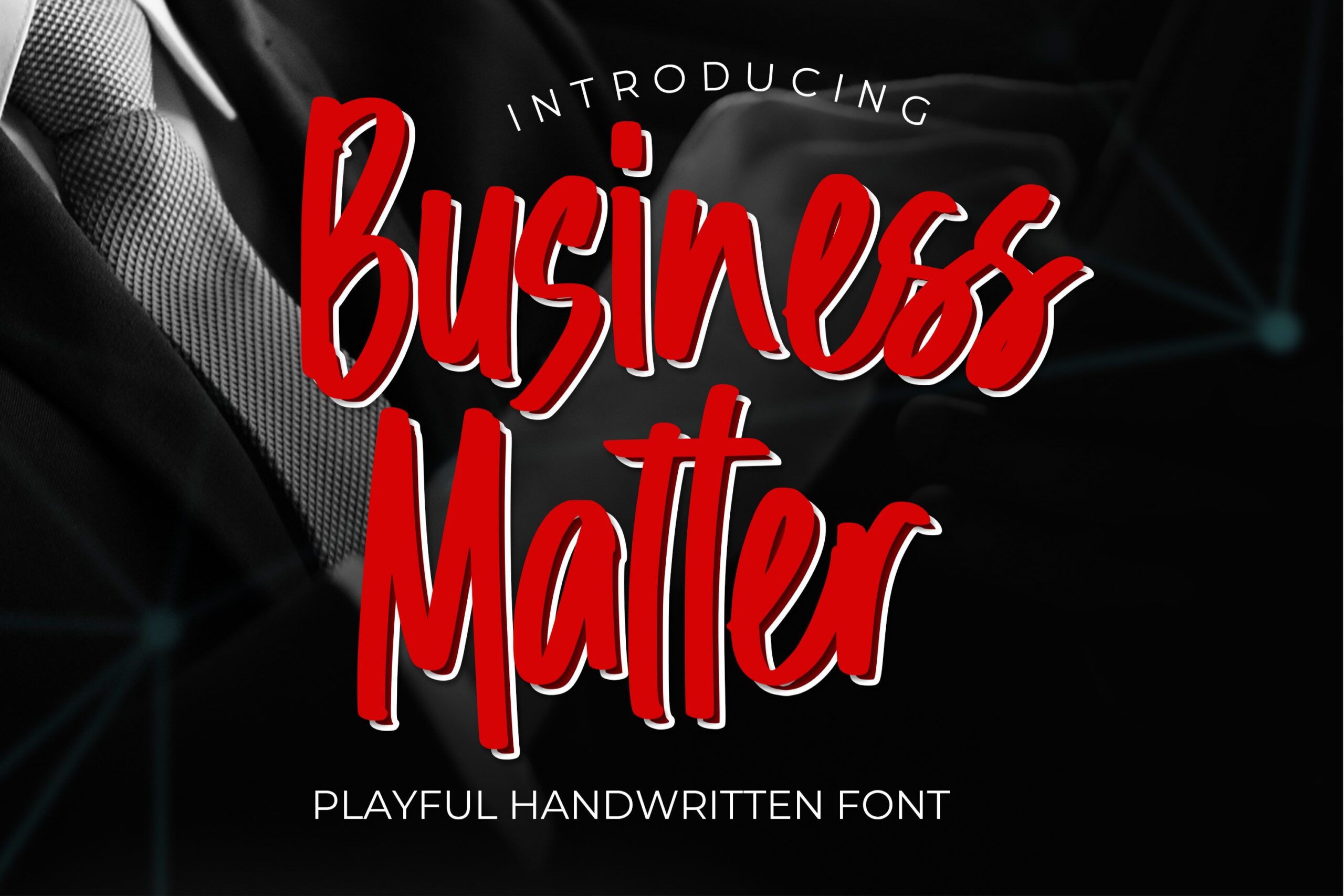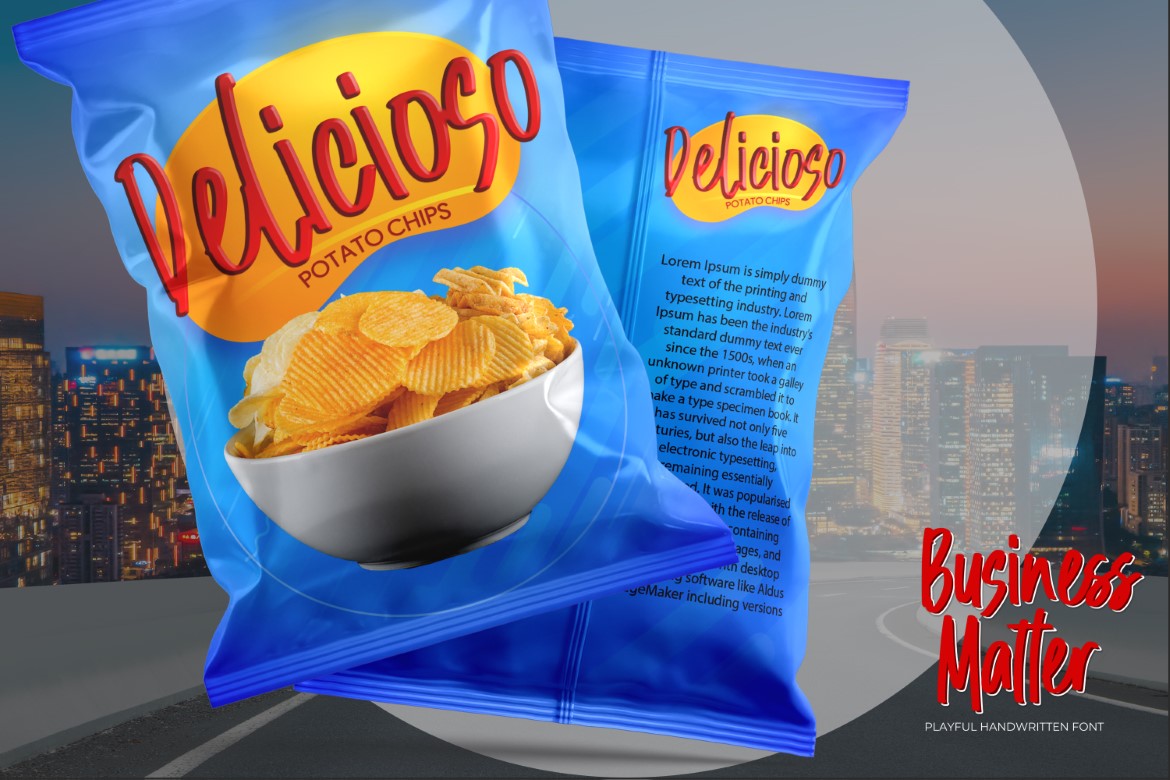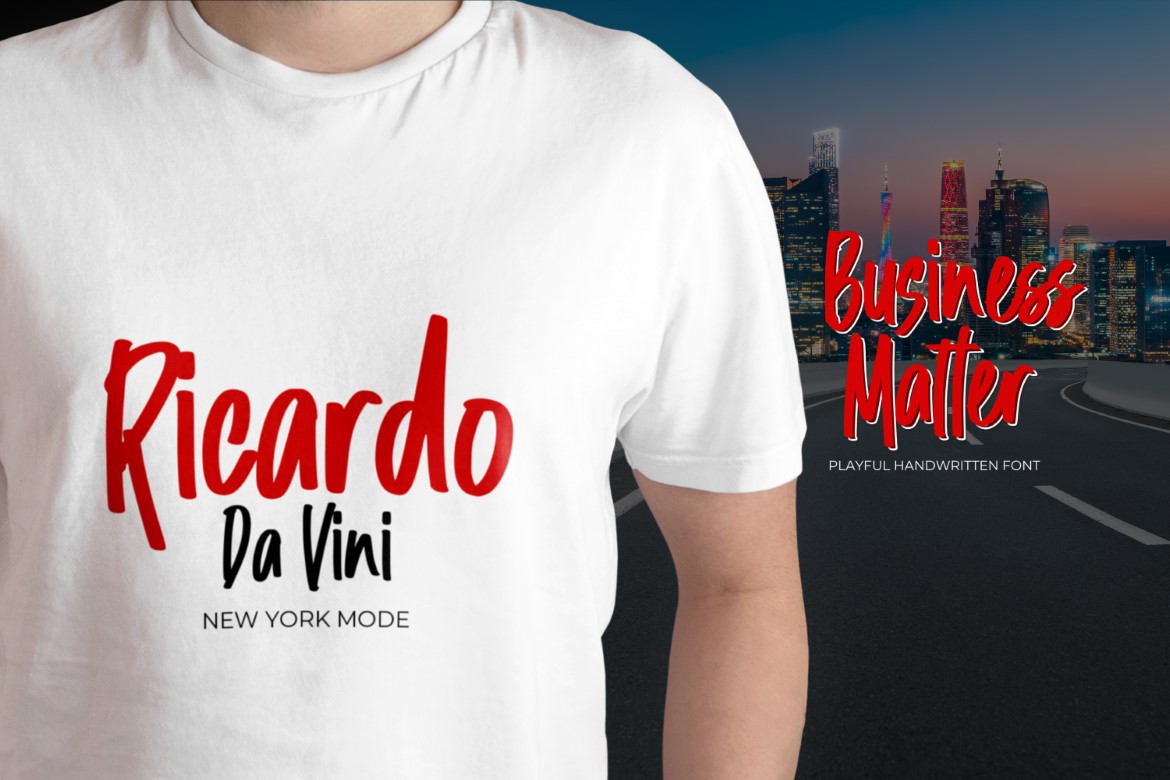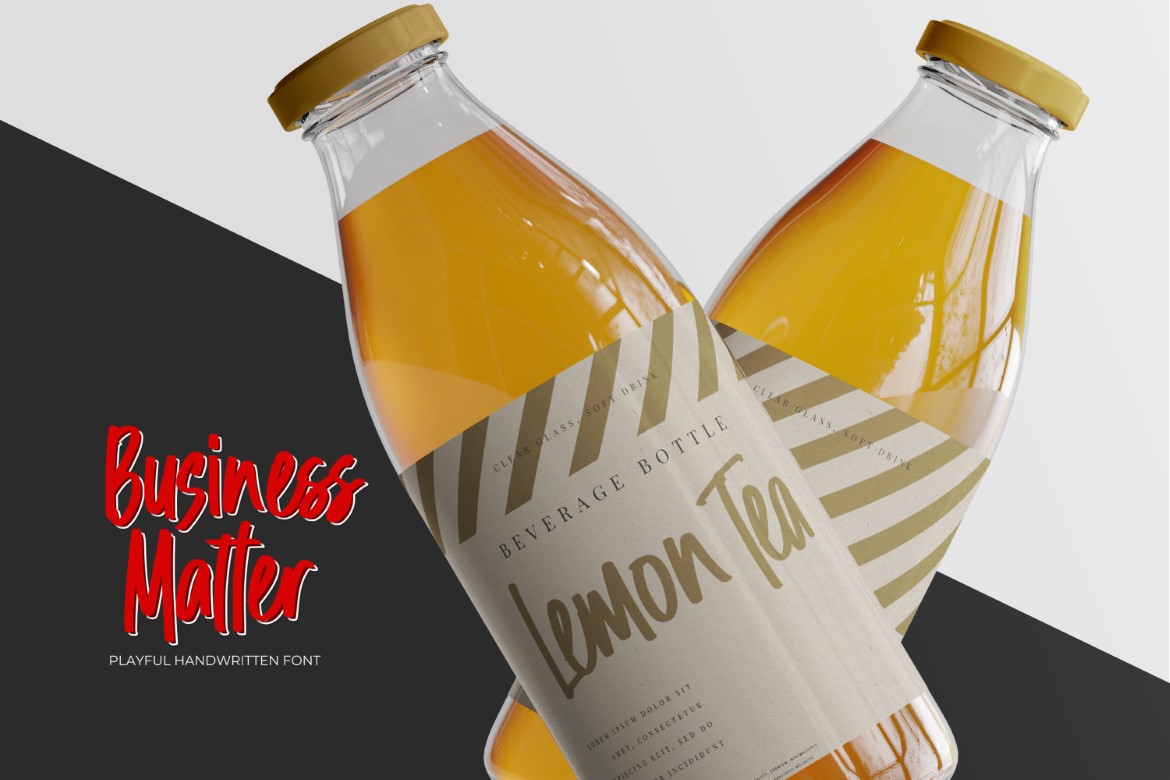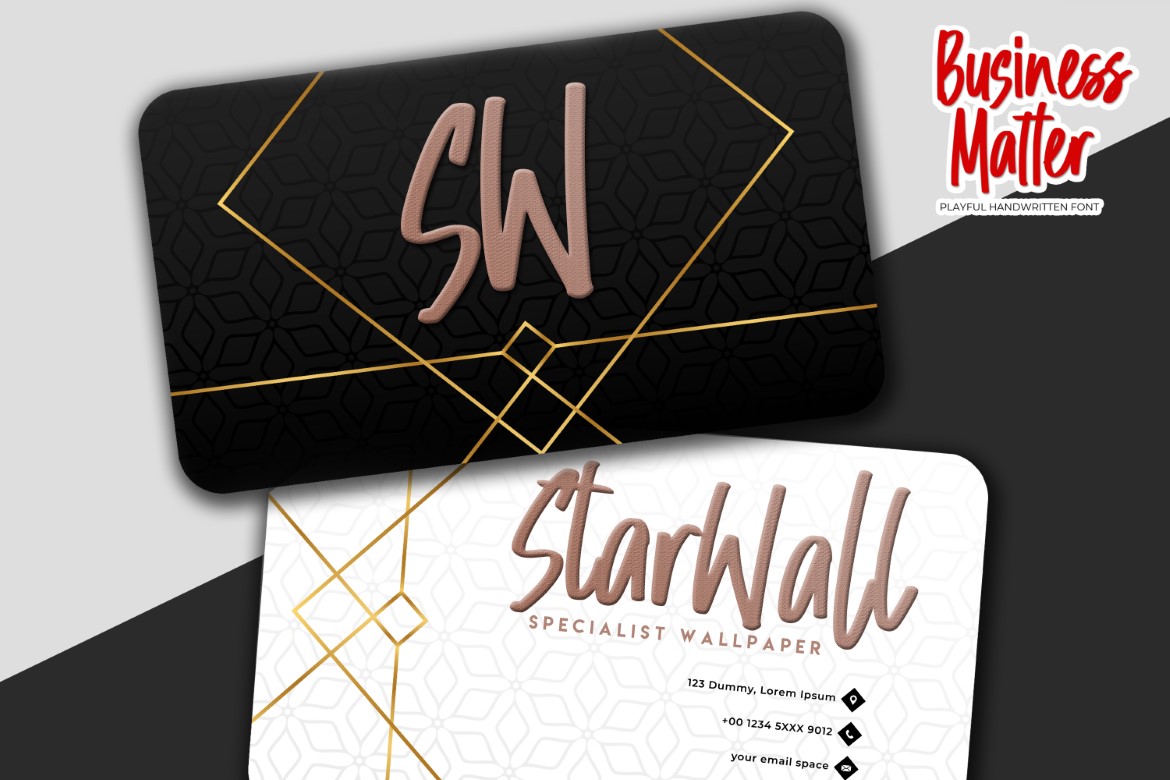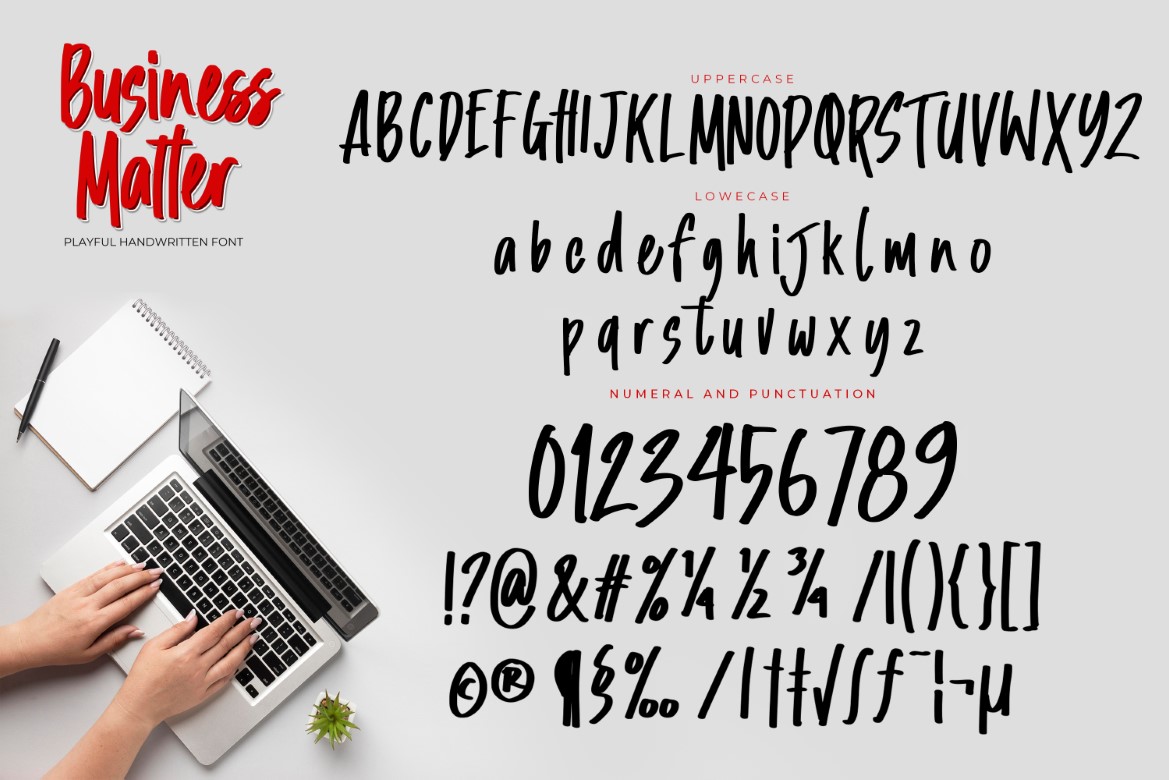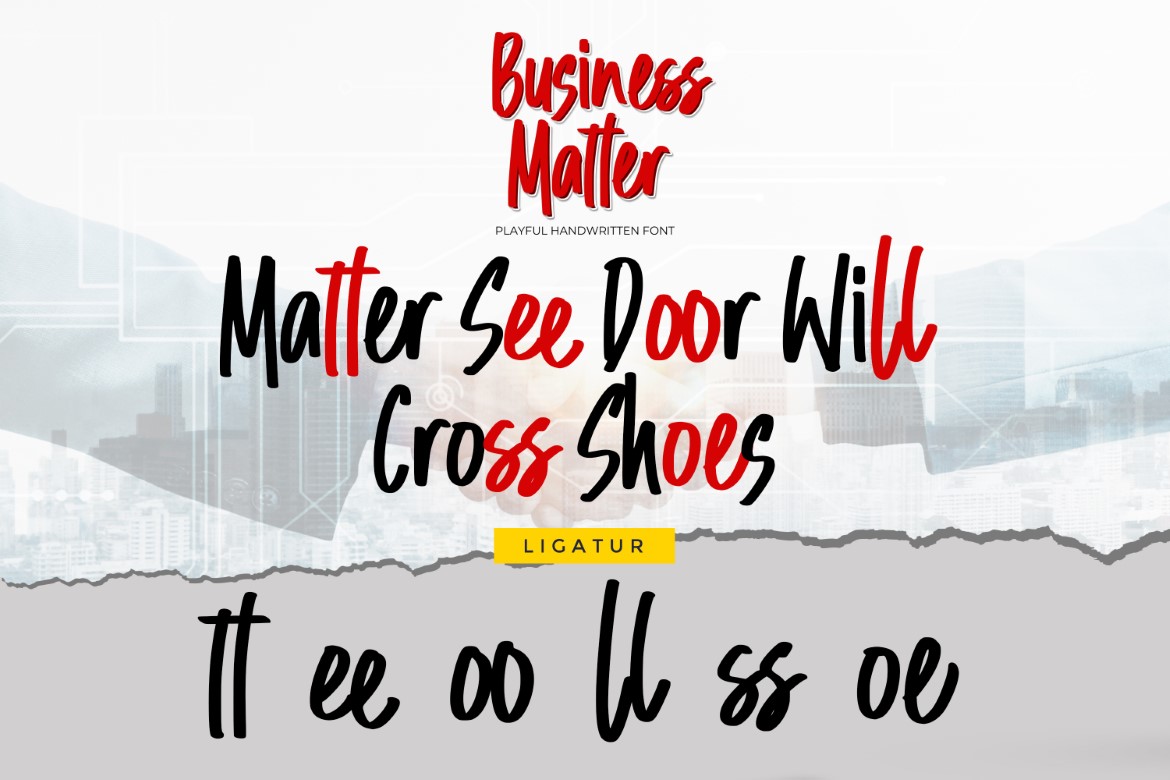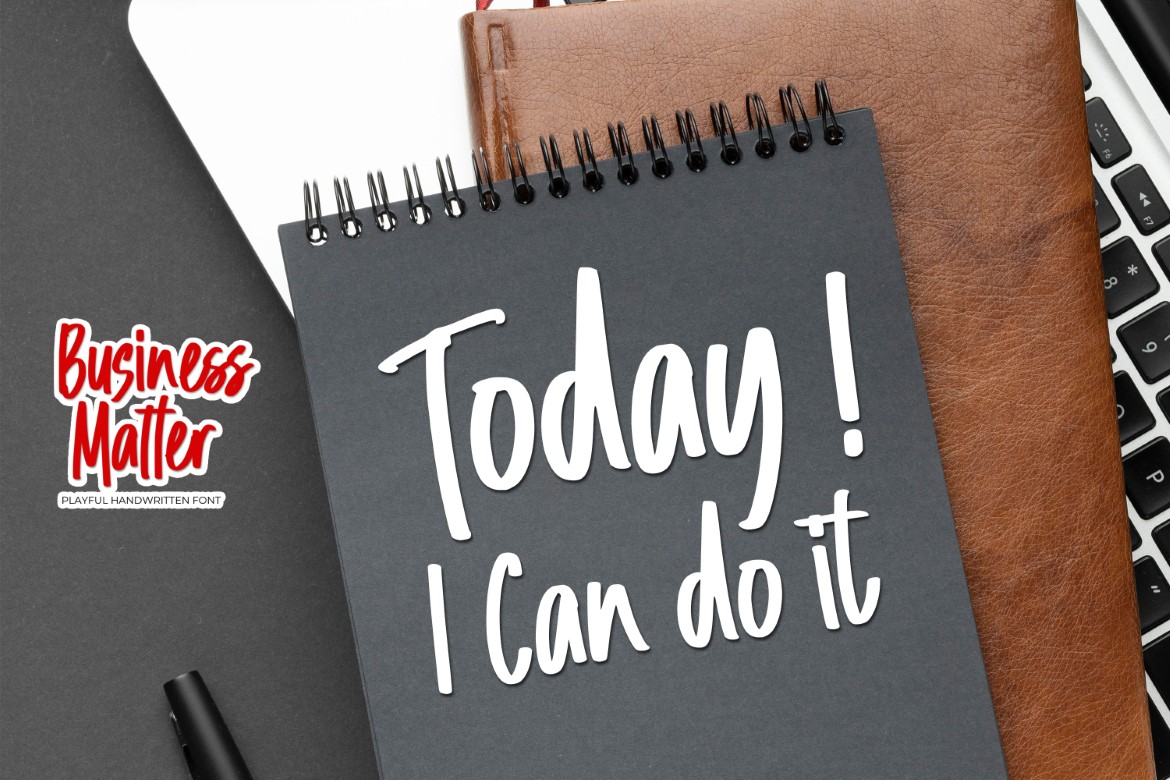
Business Matter – Playful Handwritten Font is an natural style and dramatic movement that is written casually and quickly.
That is why Business Matter has a authentic, and strong characteristic more natural look.
Business Matter Perfect for designs, branding projects, Logo design,Quotes product packaging and another Project that require cool strong font.